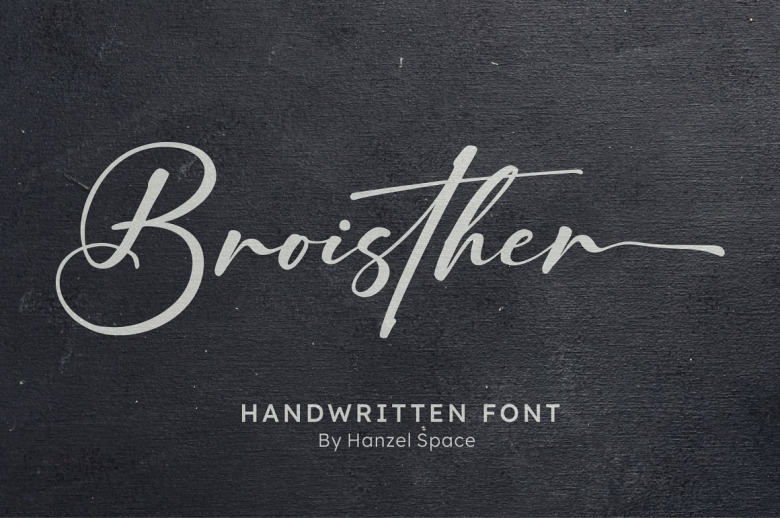
Broisther Font
Broisther, a gorgeous script font, was inspired by handwriting and has a touch of class. It can be used for both web and paper. A variety of things may be made with it such as wedding invitations, college stationery, apparel items, print designs like prints and quotes to put on the walls or give as presents to friends or family members on some happy occasion (such couples). Broisther script font contains uppercase characters, numbers, symbols, two sets of lowercase letters and a total of 28 ligature.
Broisther Handwritten Script Font